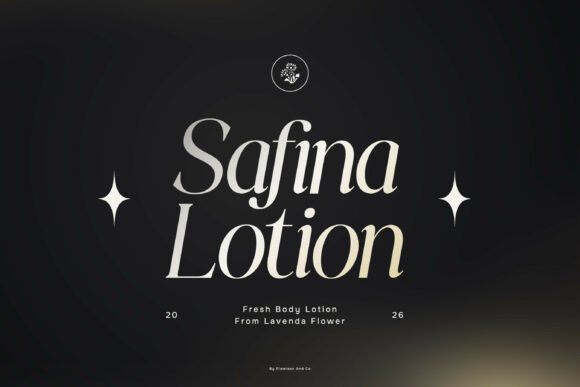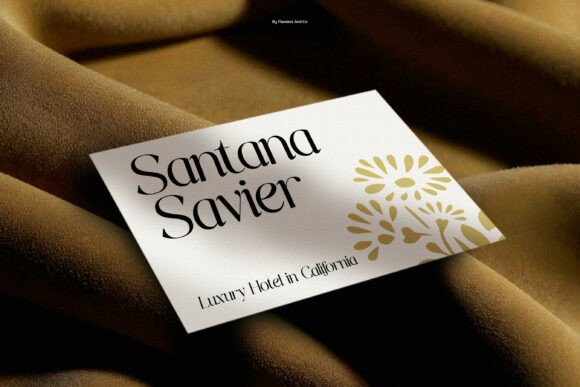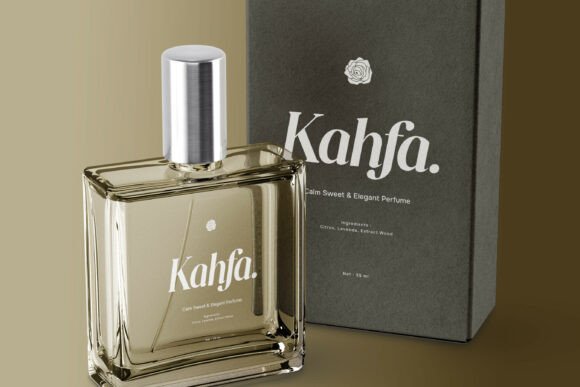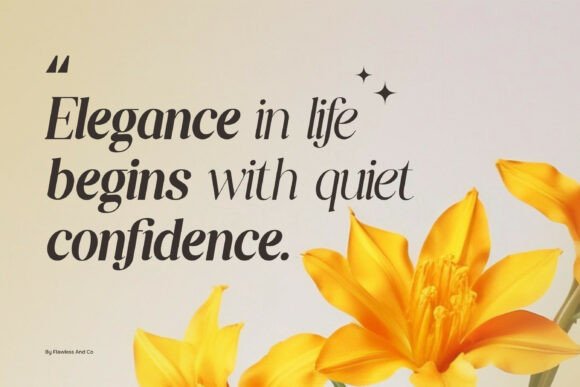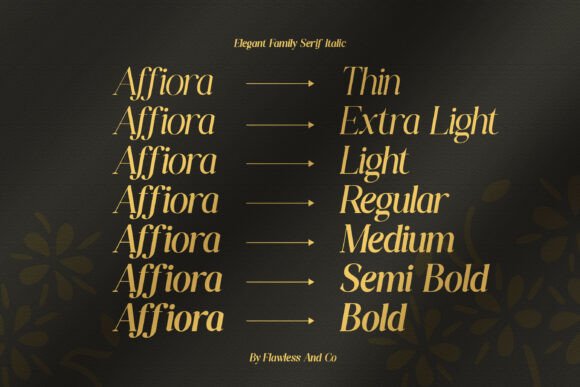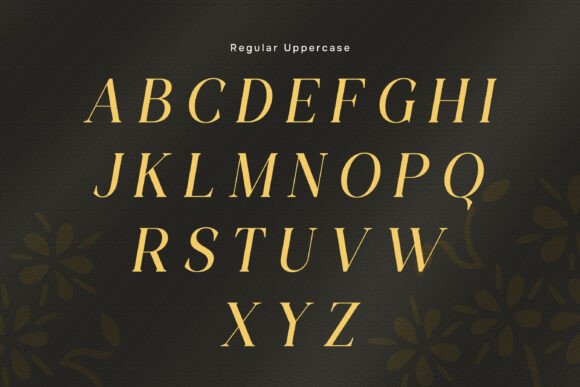
Affiora Font: Elevate Your Designs with Elegance and Sophistication
In the world of typography, a font can make or break a design. For designers and crafters seeking to add a touch of luxury and refinement to their work, the Affiora Font is an exceptional choice. This elegant and beautiful italic serif family font is designed to express grace, sophistication, and timeless beauty, making it perfect for projects that demand a high level of style and poise.
The Essence of Affiora Font
Affiora is characterized by its refined italic letterforms, smooth curves, and delicate contrasts. These distinctive features come together to create a luxurious and stylish typographic presence that enhances any design with a touch of elegance. Whether you’re working on a branding project, packaging design, or editorial layout, Affiora Font is sure to elevate your work to new heights.
Key Features of Affiora Font
- Elegant Italic Serif Design: Affiora’s italic serif design exudes sophistication and refinement, making it perfect for designs that require a touch of luxury.
- Refined Letterforms: Each letterform in the Affiora Font is carefully crafted to ensure a high level of legibility and style.
- Smooth Curves: The smooth curves and flowing lines of Affiora Font create a sense of continuity and harmony, making it ideal for designs that require a high level of visual cohesion.
- Delicate Contrasts: The delicate contrasts between light and heavy lines in Affiora Font add depth and dimension to any design, creating a rich and engaging visual experience.
Uses of Affiora Font
Affiora Font is a versatile typeface that can be used in a wide range of design applications, including:
- Branding and Logo Design: Affiora Font is perfect for creating luxurious and sophisticated brand identities that demand attention and respect.
- Packaging Design: The elegant and refined design of Affiora Font makes it an excellent choice for packaging design, particularly for high-end products.
- Editorial Design: Affiora Font is well-suited for editorial design, including magazines, newspapers, and books that require a high level of typographic sophistication.
- Digital Design: Affiora Font can also be used in digital design, including websites, apps, and social media graphics, where its elegant and refined design can help to create a lasting impression.
Why Choose Affiora Font?
With so many fonts available, why choose Affiora Font? Here are just a few reasons why Affiora Font stands out from the crowd:
- Unique and Distinctive Design: Affiora Font features a unique and distinctive design that sets it apart from other fonts.
- High Level of Legibility: Affiora Font is designed to be highly legible, making it perfect for designs that require a high level of readability.
- Versatile: Affiora Font can be used in a wide range of design applications, making it a versatile addition to any designer’s toolkit.
In conclusion, Affiora Font is an exceptional choice for designers and crafters seeking to add a touch of elegance and sophistication to their work. With its refined italic letterforms, smooth curves, and delicate contrasts, Affiora Font creates a luxurious and stylish typographic presence that enhances any design. Whether you’re working on a branding project, packaging design, or editorial layout, Affiora Font is sure to elevate your work to new heights.